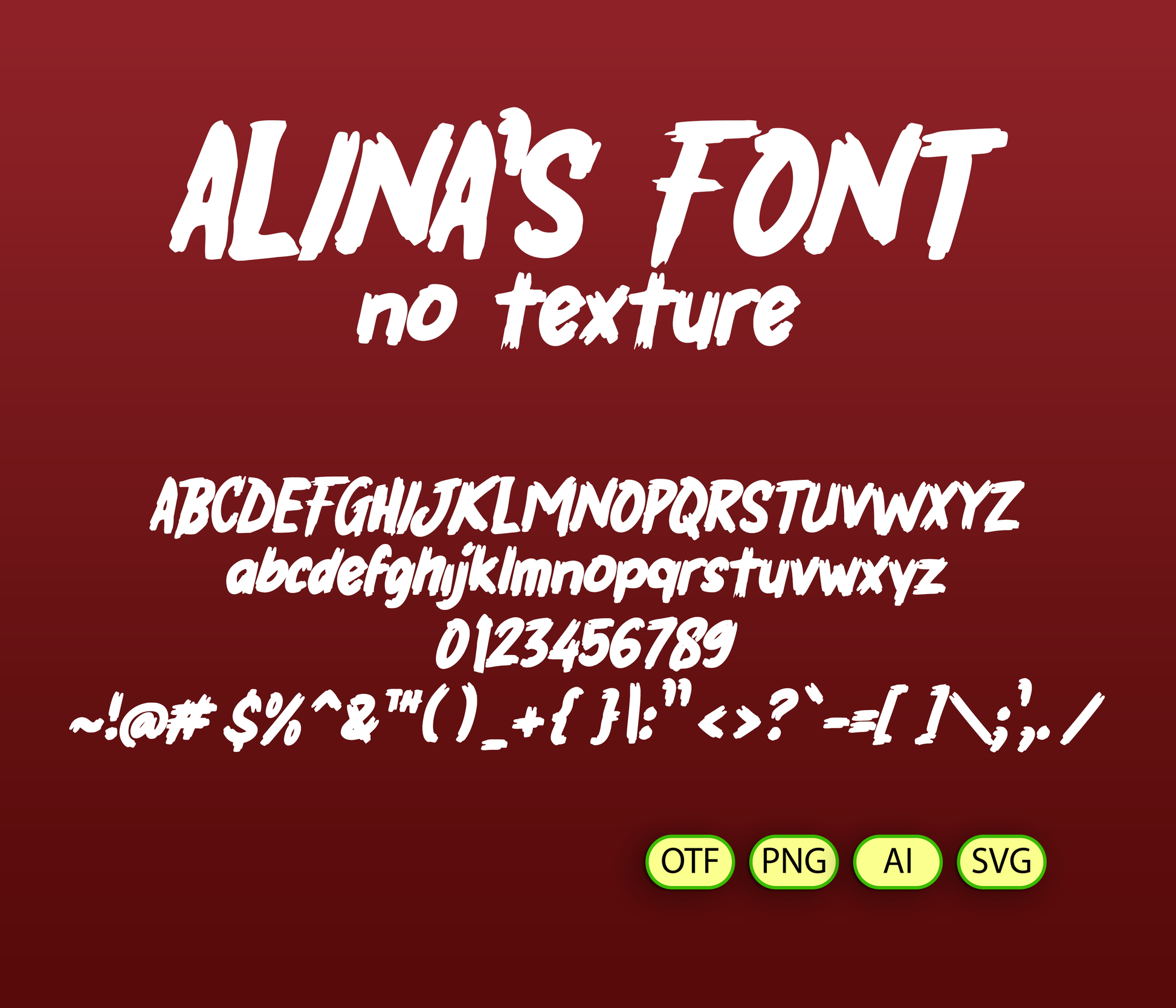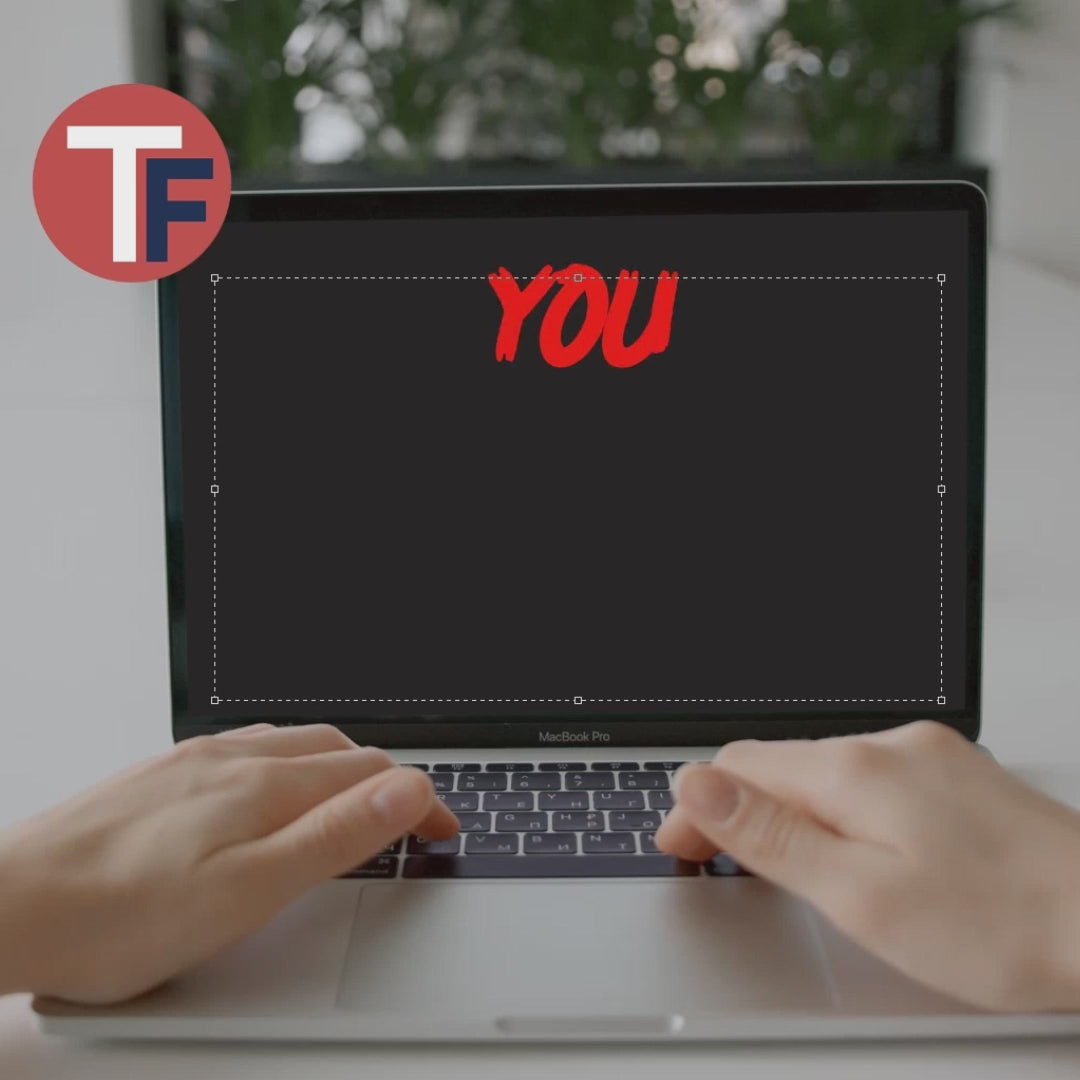
Fearsome Night Font
Unleash the Horror with the Fearsome Night Font
Dive into the spine-chilling world of horror with our Fearsome Night font, inspired by an iconic horror franchise. Perfect for fans, event planners, and designers, this font brings the eerie and thrilling essence to your projects. Whether creating event invitations, themed merchandise, or digital content, our Fearsome Night font ensures your projects resonate with a dark and ominous atmosphere.
Our Fearsome Night-inspired font features sharp, jagged lines and bold characters that reflect the intense and haunting style of the horror classic. This versatile font is ideal for:
- Event Invitations: Spooky invites for Halloween parties, horror movie nights, or themed events.
- Merchandise Design: T-shirts, posters, and accessories capturing the essence of Fearsome Night.
- Digital Media: Eerie headers and graphics for websites, blogs, and social media.
- Educational Materials: Presentations, worksheets, and content focused on film history, horror genre, or storytelling.
- Personal Projects: Add horror to scrapbooking, DIY crafts, or home decor inspired by fearsome tales.
Our Fearsome Night font pays tribute to a legendary horror series, empowering you to infuse your designs with its thrilling and ominous spirit. Ready to bring a chilling impact to your creative projects? This font is your key to unlocking a world of eerie and captivating design.